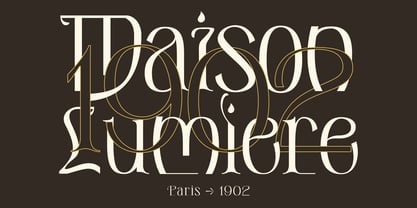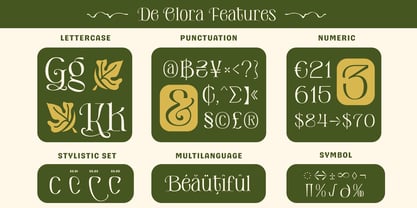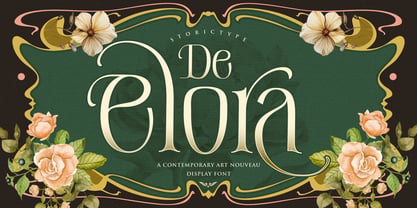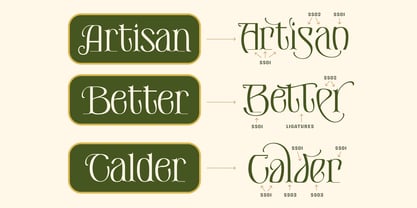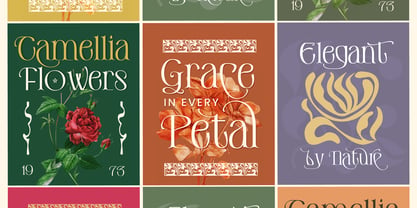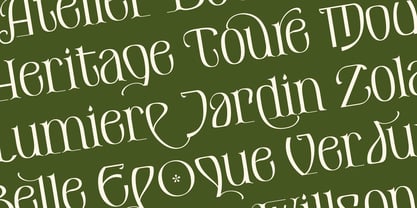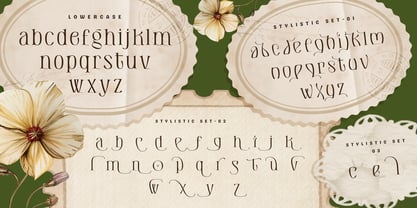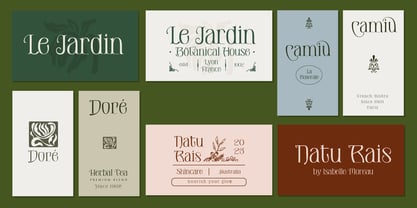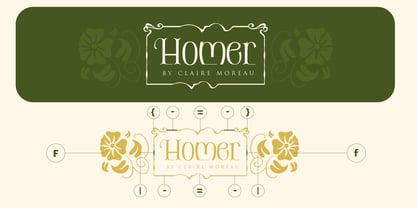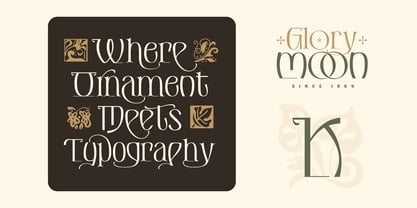
De Elora
by Storictype
The De Elora Font Family was designed by panji nugroho and published by Storictype. De Elora contains 2 styles. More about this family
De Elora is a refined display typeface inspired by the timeless elegance of Art Nouveau, reimagined for modern creatives. With its flowing curves, delicate contrasts, and graceful letterforms, De Elora brings a sense of sophistication and romance to any design.
Designed to stand out, this typeface blends organic ornamental beauty with contemporary precision—making it perfect for projects that demand both character and luxury.
✨ Key Features
• Elegant Art Nouveau–inspired letterforms
• High-contrast strokes with smooth, flowing curves
• Stylish ligatures for seamless typography
• Carefully crafted for display use
• Includes decorative ornament font to elevate your layouts
• De Elora Regular
• De Elora Ornament
• Stylistic ALternate
• Ligatures
Designers: panji nugroho
Foundry: Storictype